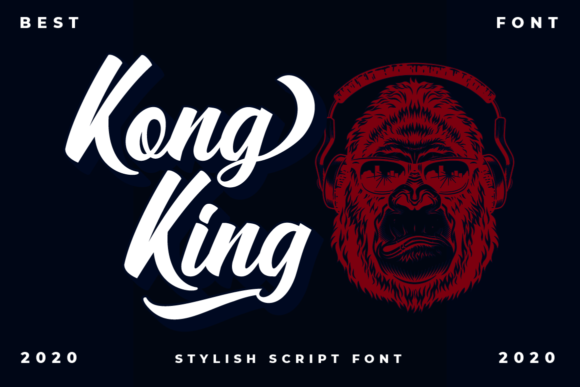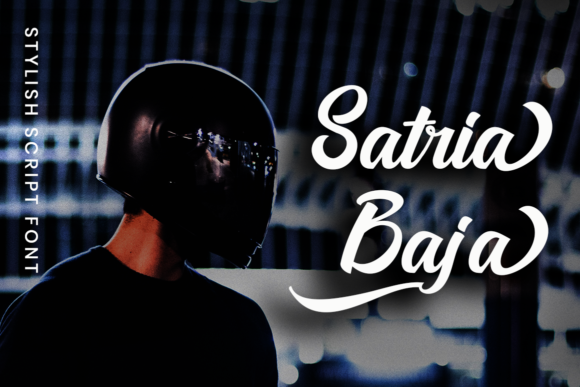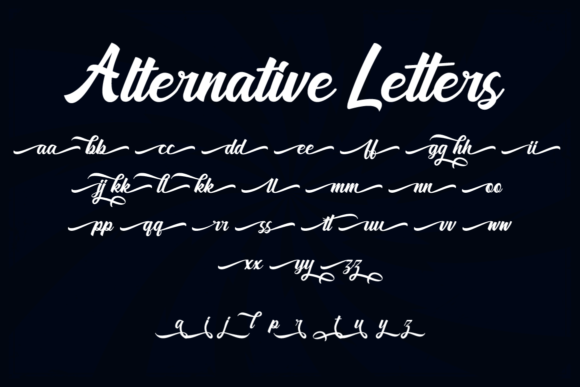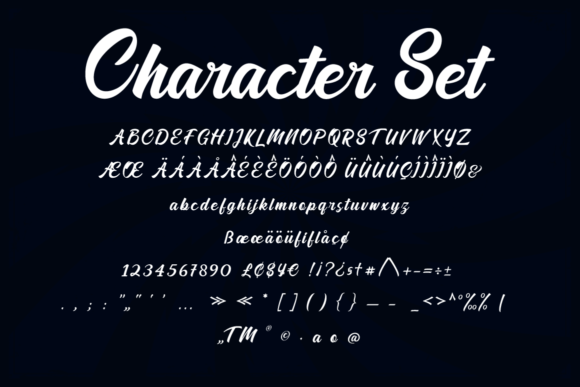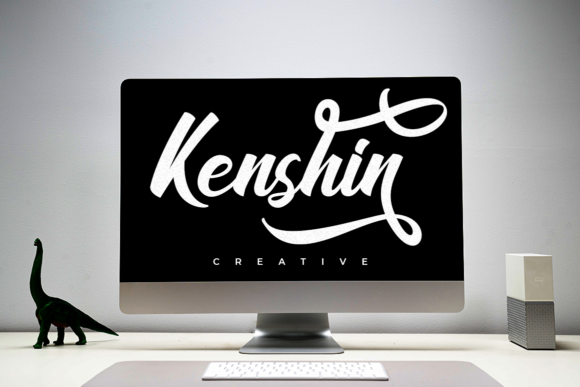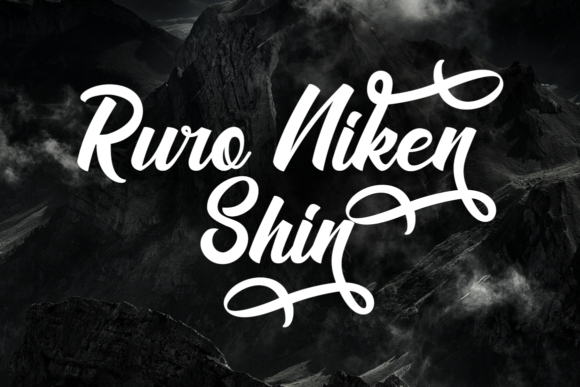
Road Stone Font – Free Download
Introduction to Road Stone Font
Road Stone is a sweet and friendly handwritten font.
Its natural and unique style makes it incredibly fitting for a large pool of designs The only limit is your imagination.
Key Features of Road Stone Font
Why Choose Road Stone Font?